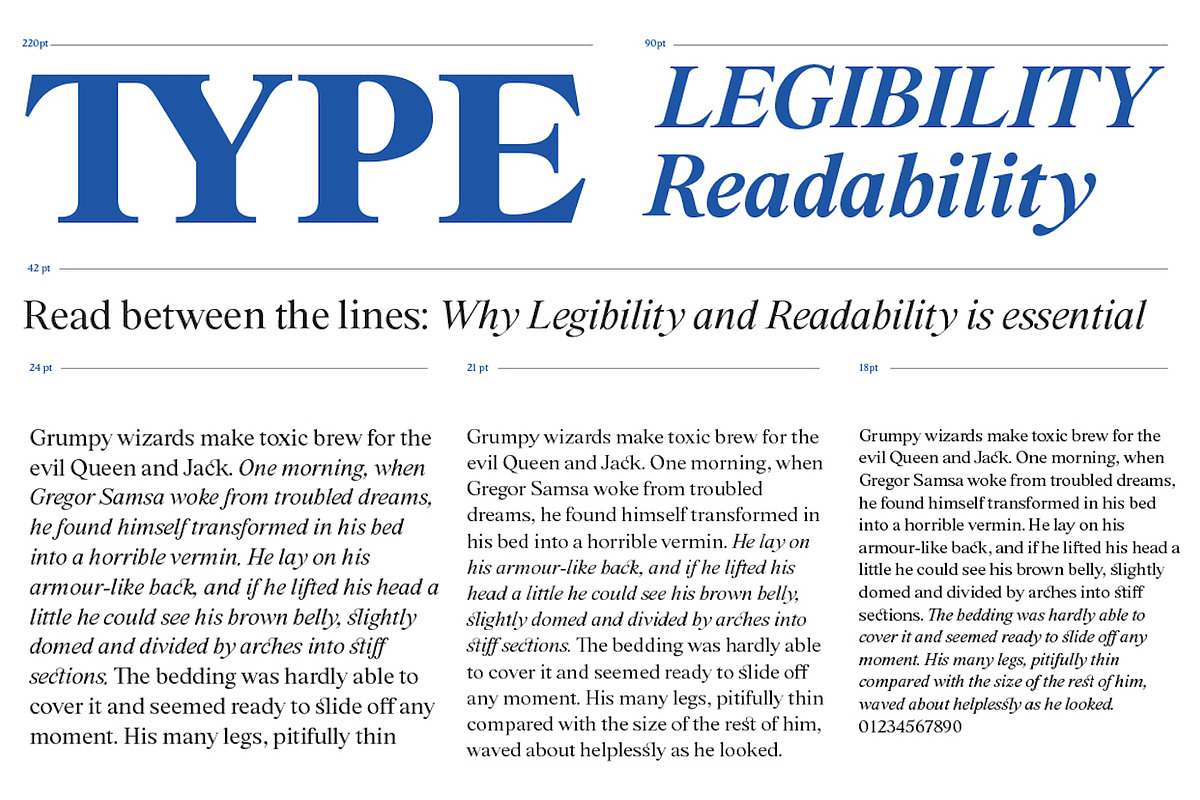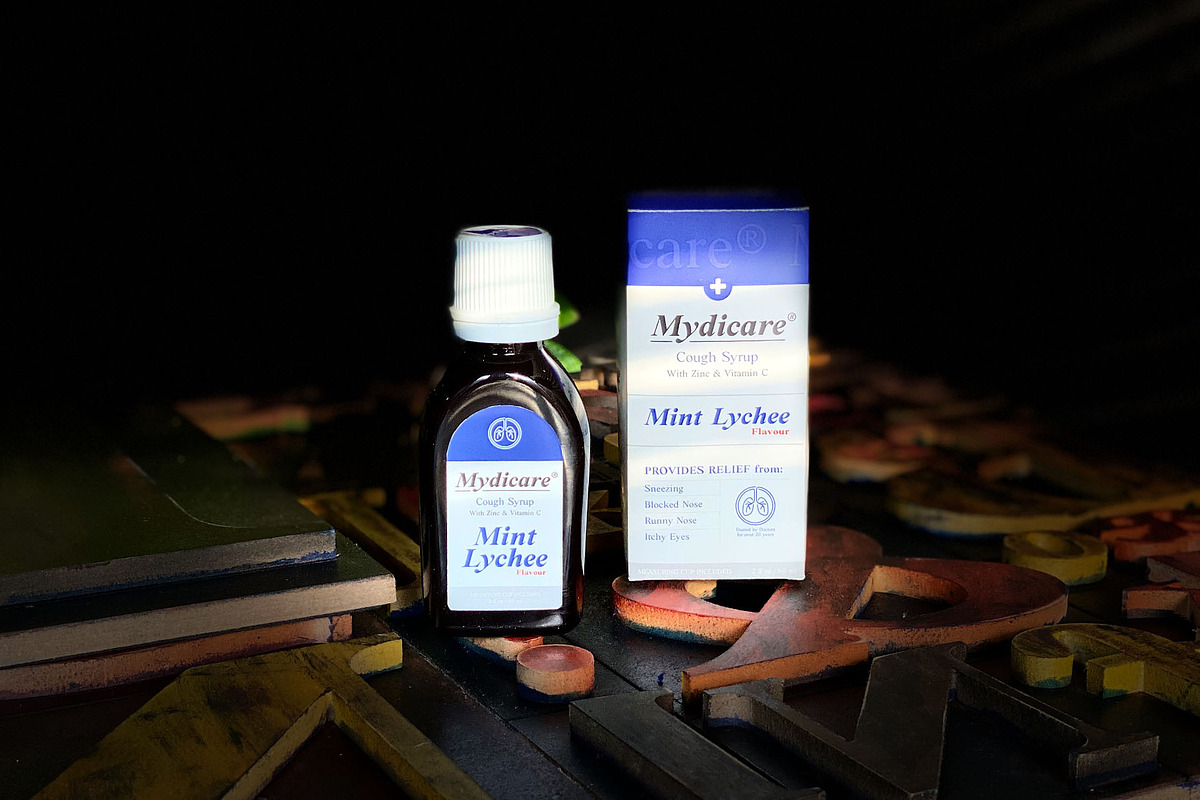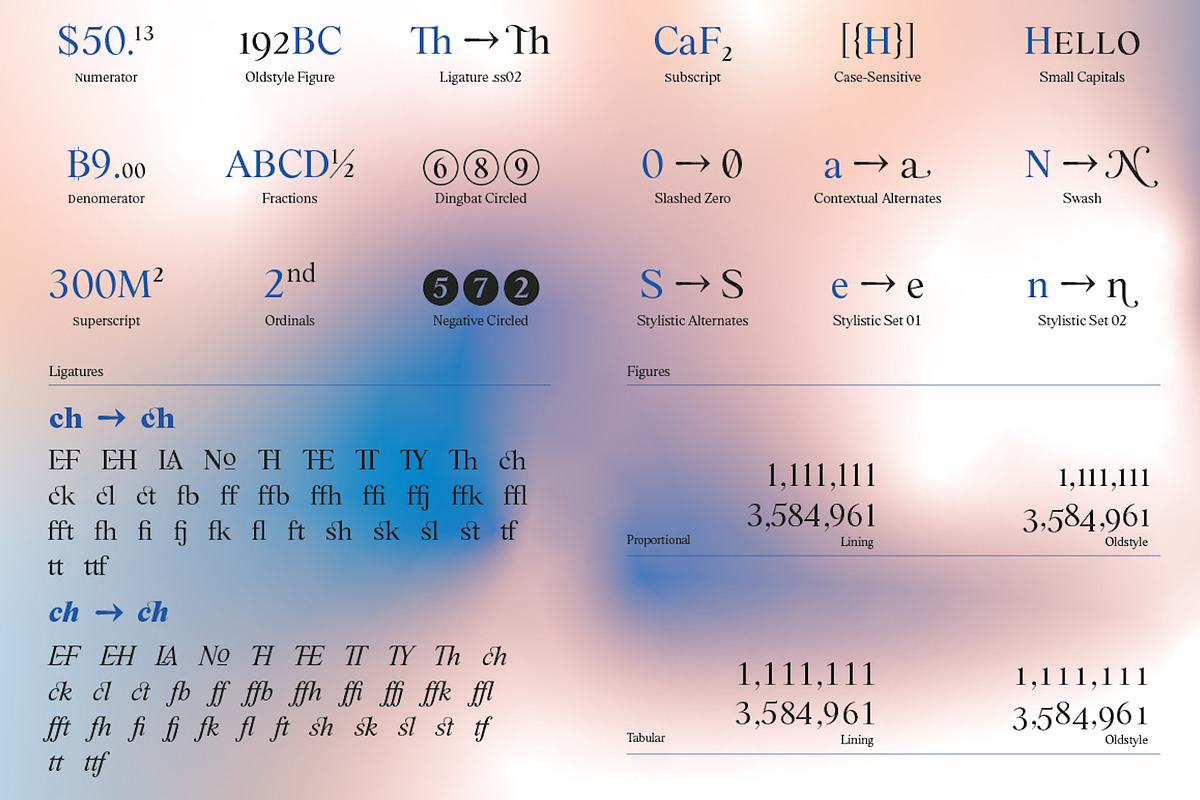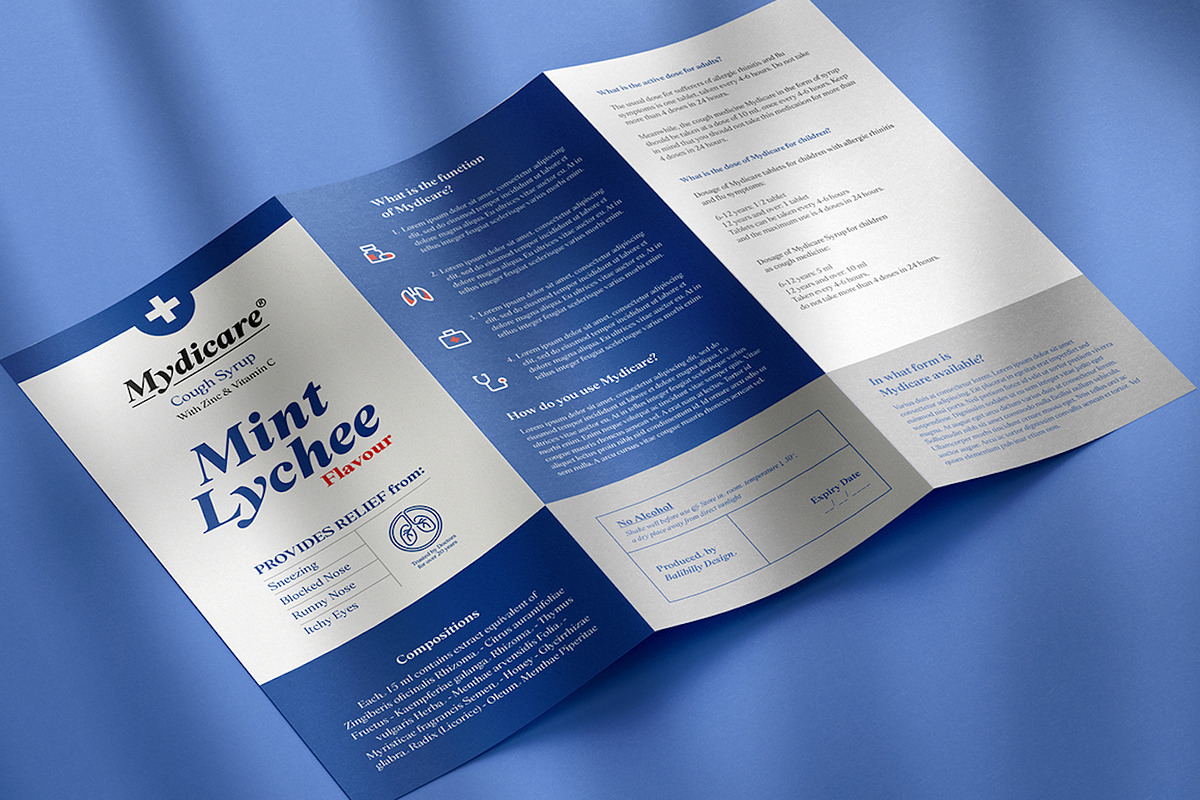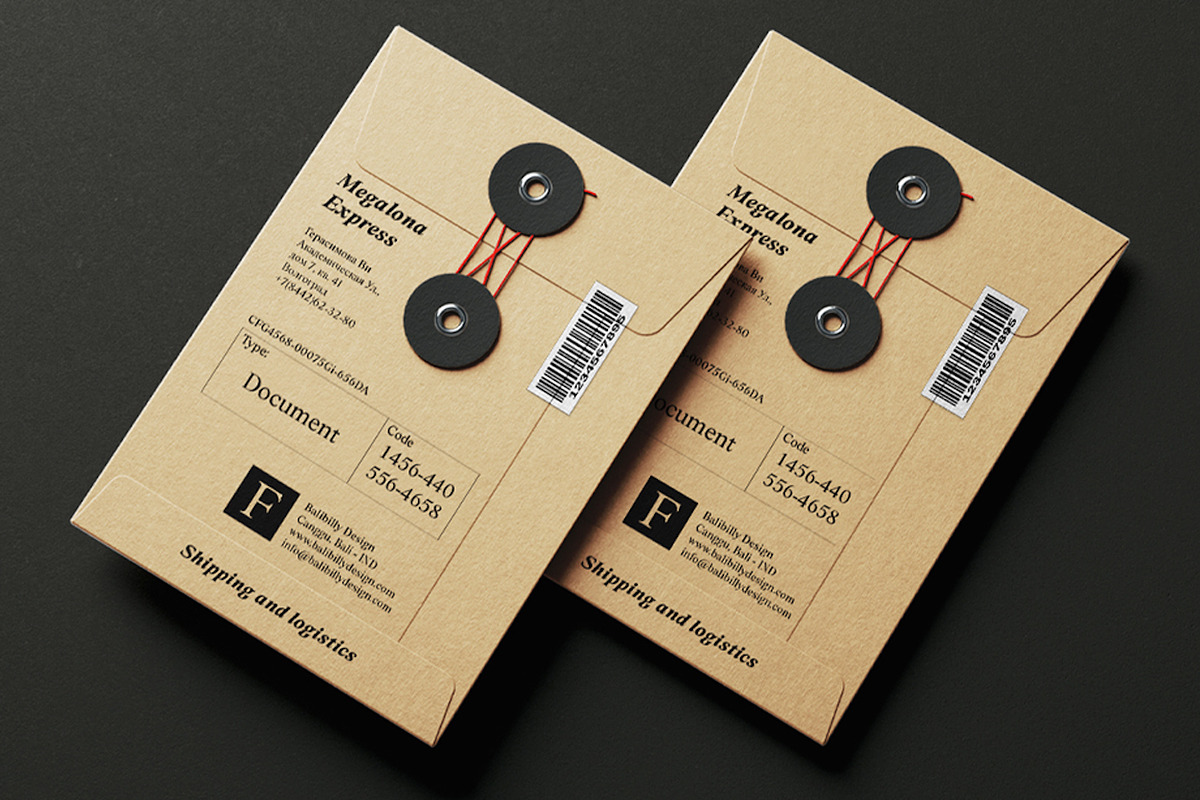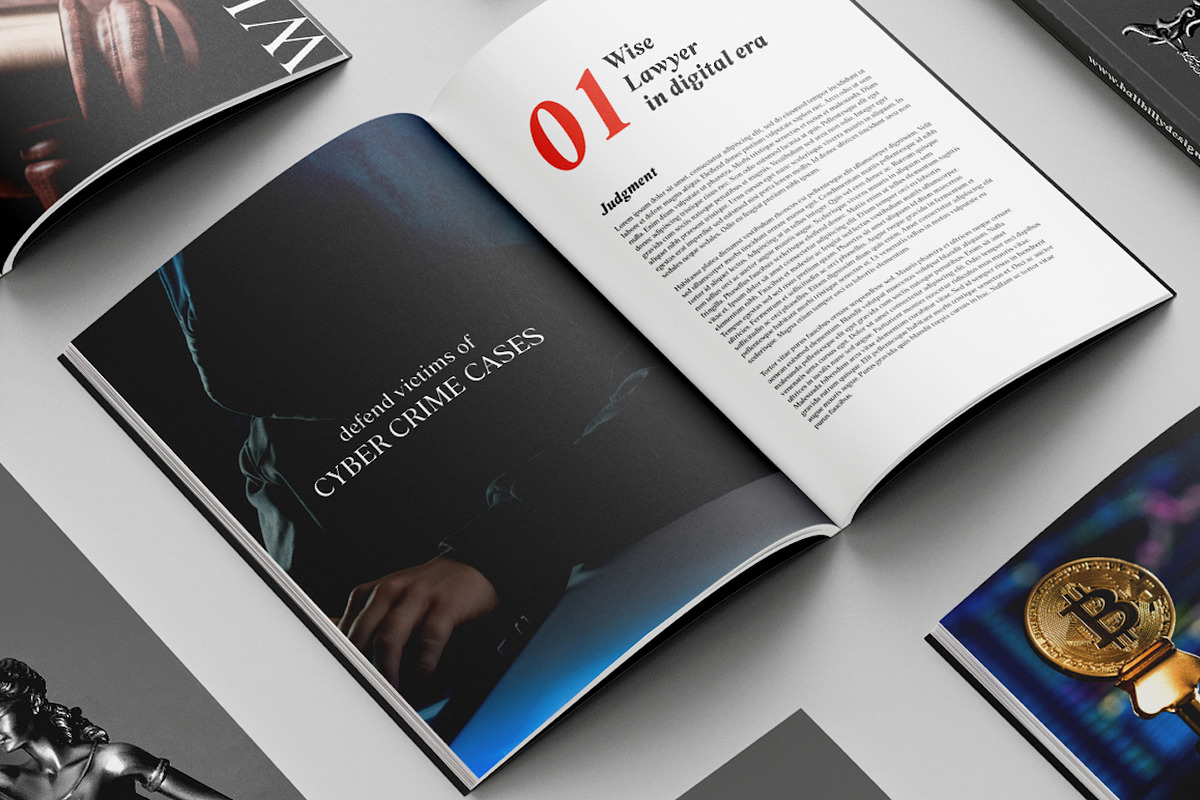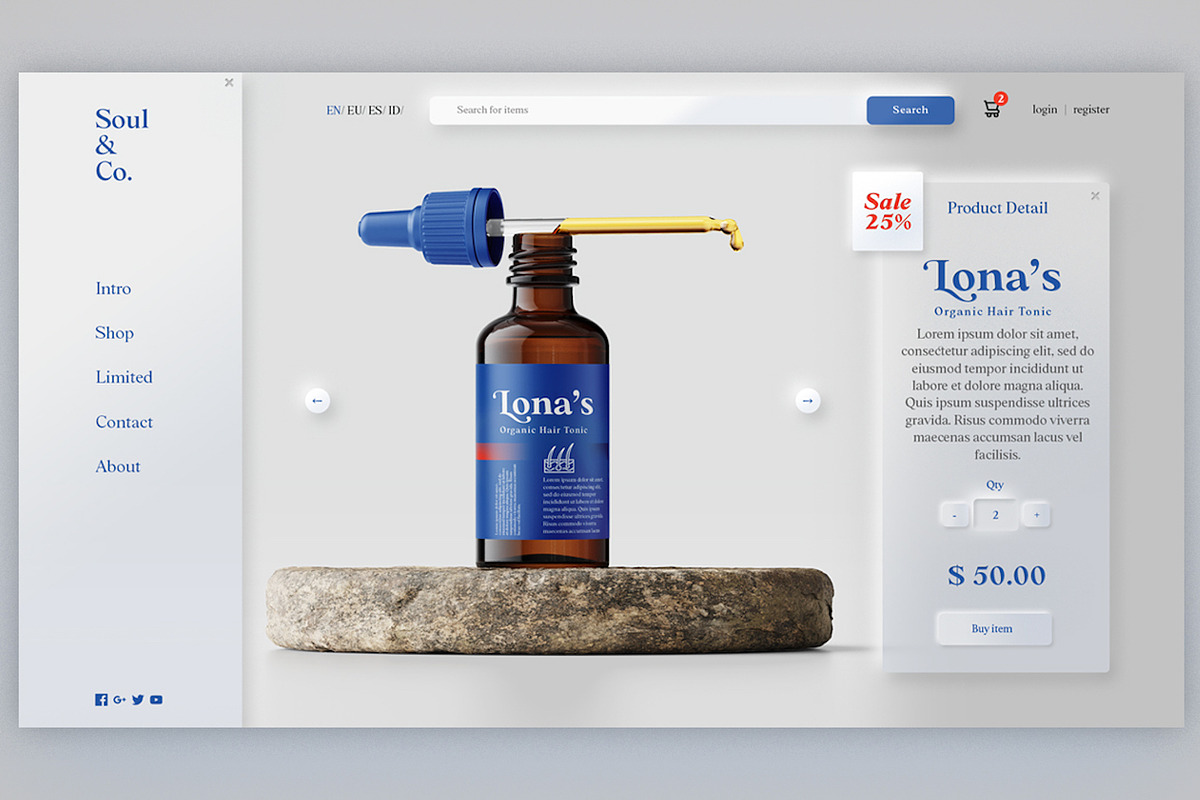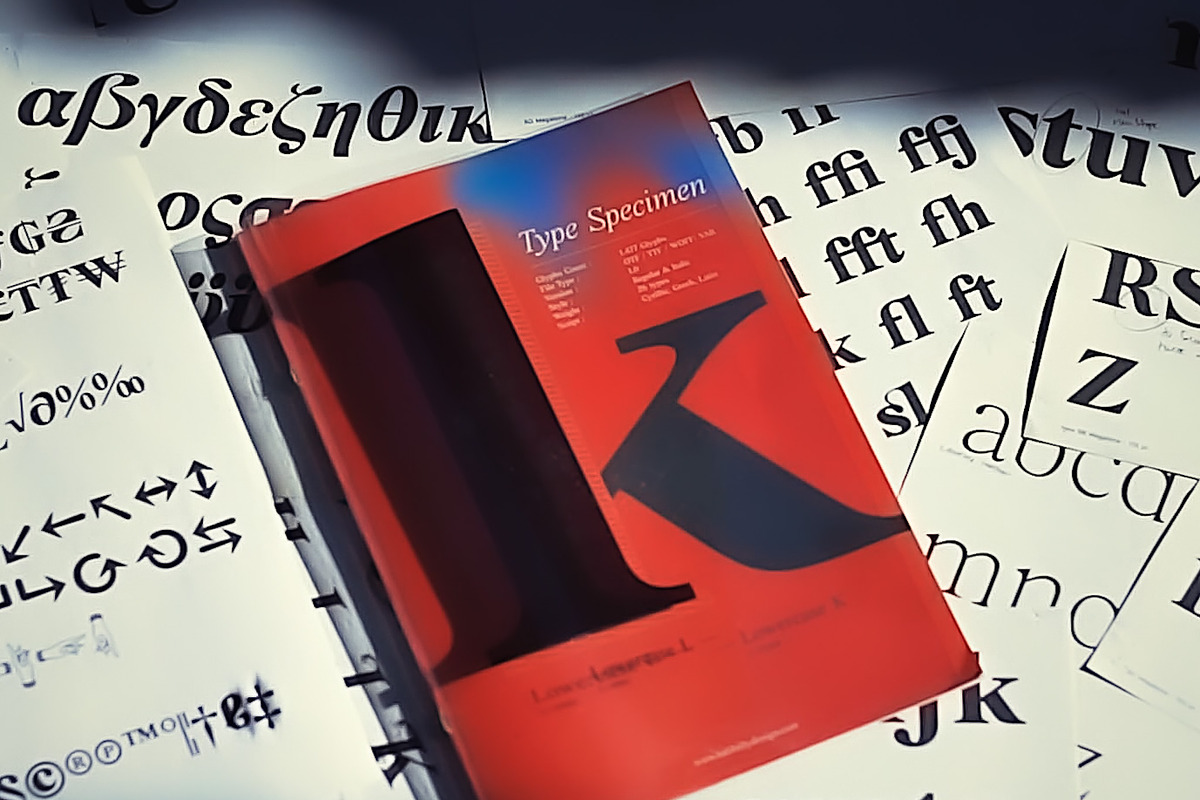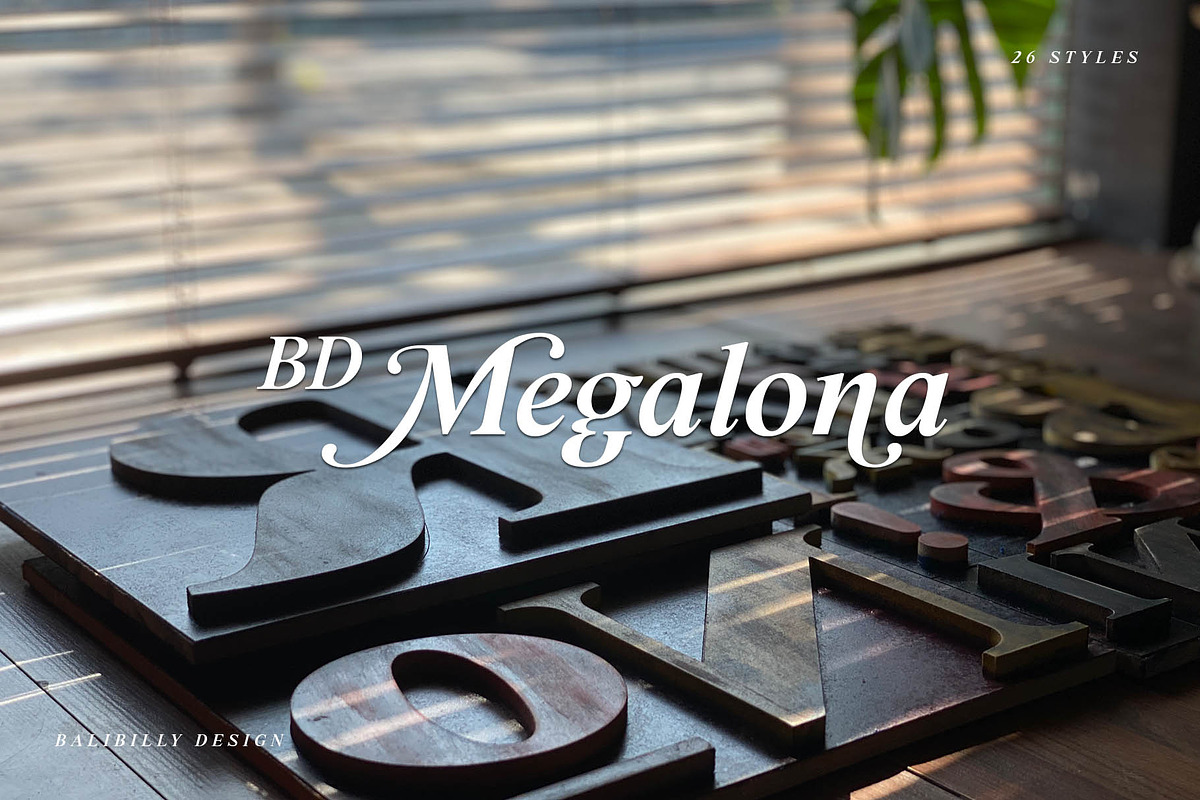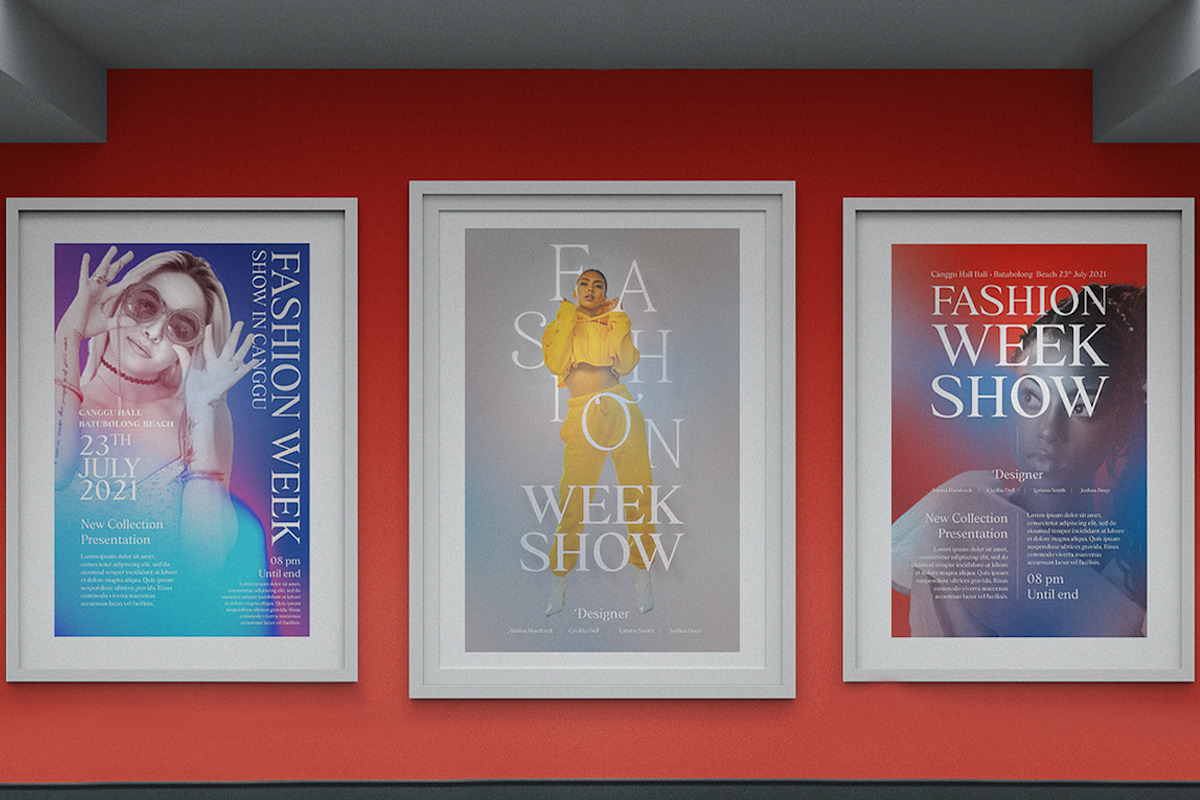
BD Megalona - Old Style Serif
BD Megalona is Balibilly Design homage to the tradition of typography, a revival of the elegance, consistency, and hard work of Times New Roman.
BD Megalona consisting of 26 fonts 13 weights with matching true italics forms. Feature an extended charset of over 1800 glyphs, covering 219 languages using Latin, Cyrillic (basic to extended), and Greek alphabets. Included advanced open type features like stylistic alternates, terminal form, swash, discretionary ligatures, ordinals, small caps, positional numbers, fractions, and case-sensitive forms.
BD Megalona provides a range of choices that will give luxury vibes in symmetrical layouts with selective deviations, and work well in a stylish look for your typographic project. This is a complete package of problem solvers perfectly suited for body text and high-impact headlines. Advance open-type features definitely stunning on logos, branding, magazines, website, etc.
BD Megalona is our ego in expression that aims to supply the necessity of design nowadays while still in the corridors of glory of past traditions as a source of our inspiration.
OpenType Features: Subscript, Scientific Inferiors, Superscript, Numerators, Denominator, Fraction, Ordinal, Lining Figure, Proportional Figure, Tabular Figure, Old-style Figure, Small Capitals, Case-Sensitive Form, Discretionary Ligature, Standard Ligature, Slashed Zero, Alternate Annotation Form, Swash, Stylistic Alternates, Stylistic Set, Contextual Alternate.